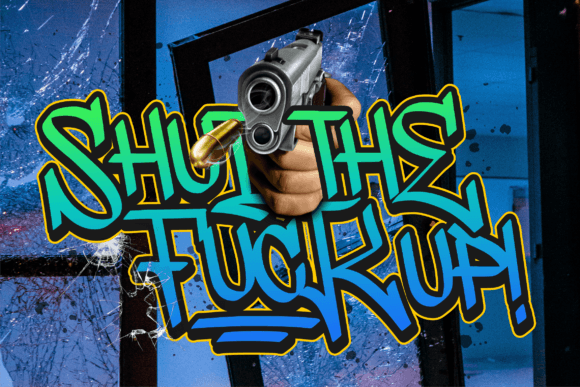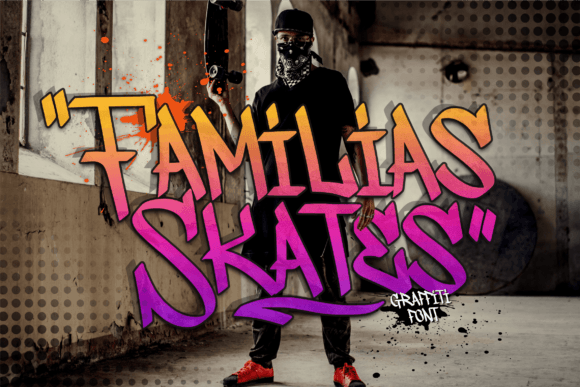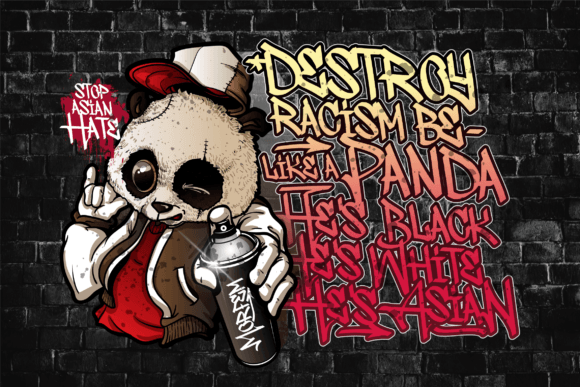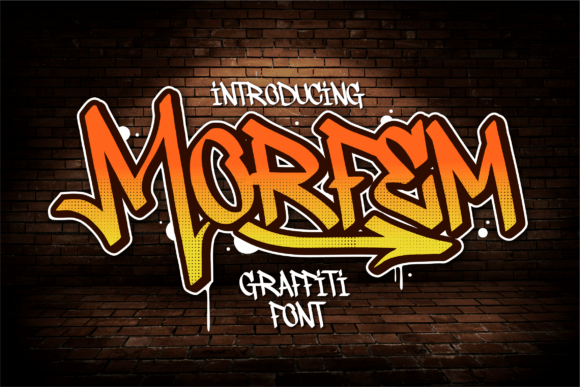
Introduction to Morfem Font
Morfem is a two-style graffiti display font perfect for product packaging, branding projects, magazines, social media posts, weddings, or just used to express words above the background.